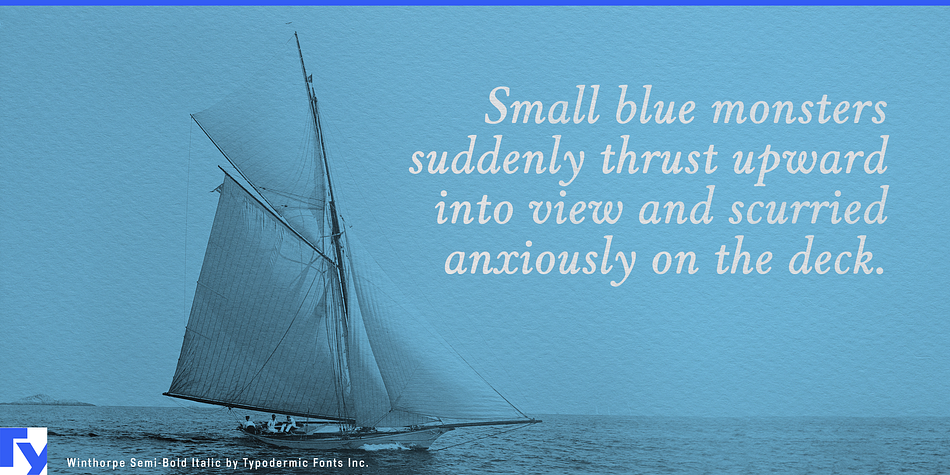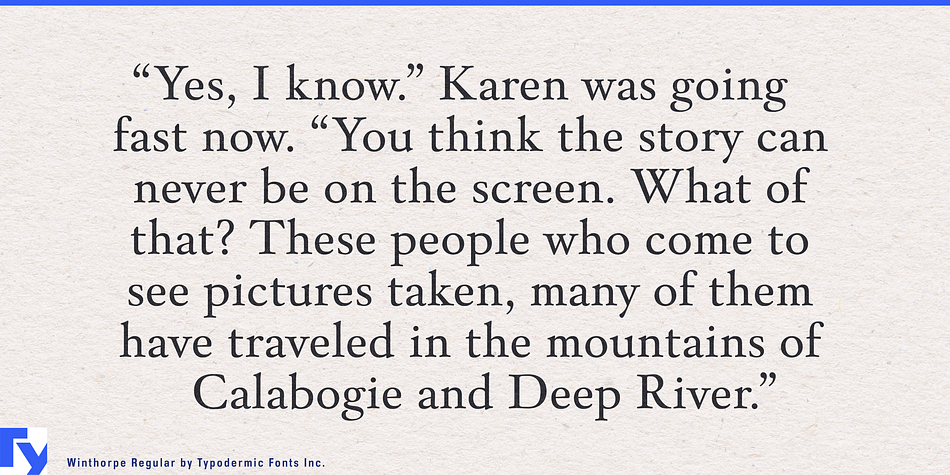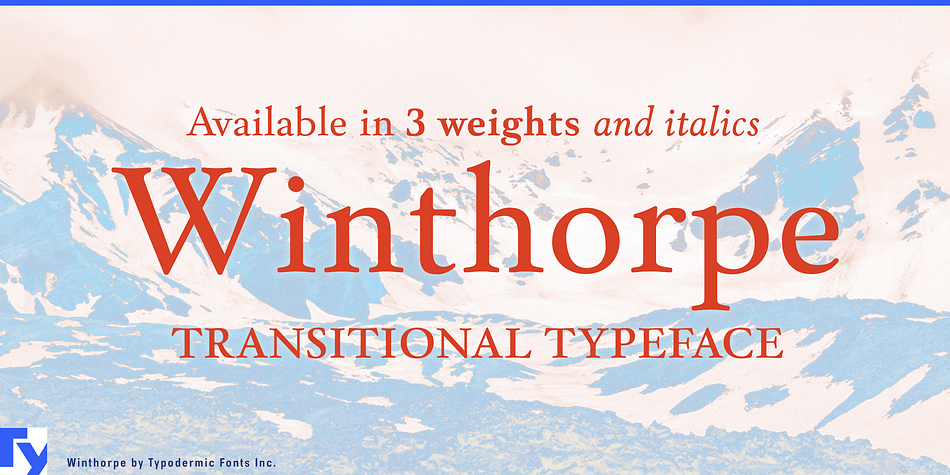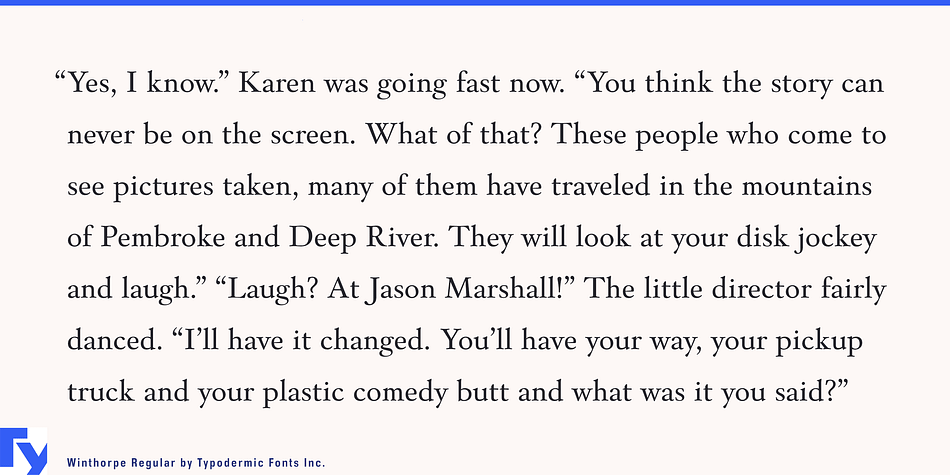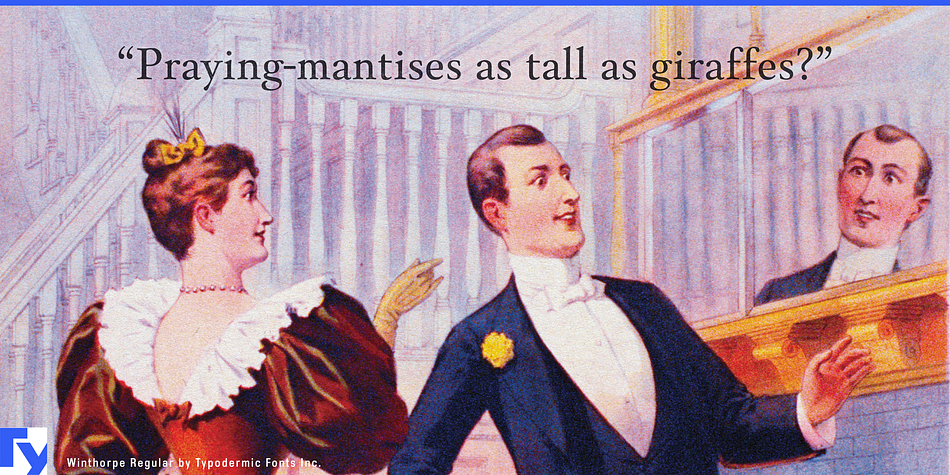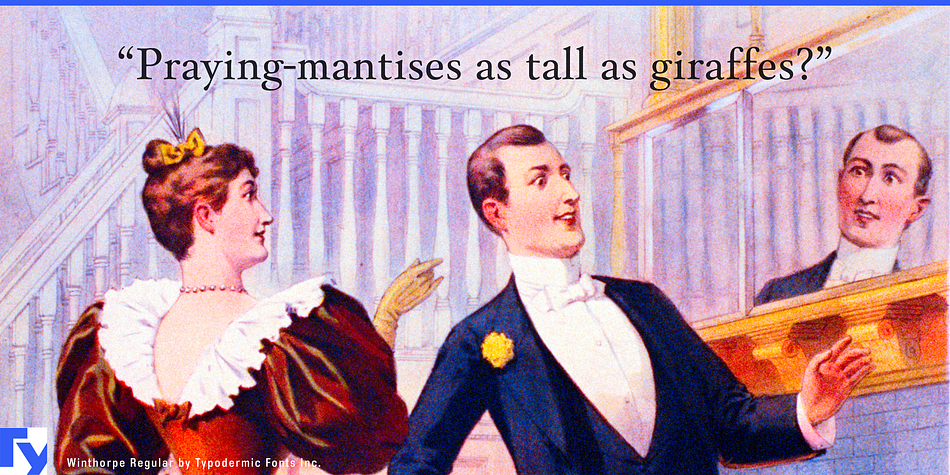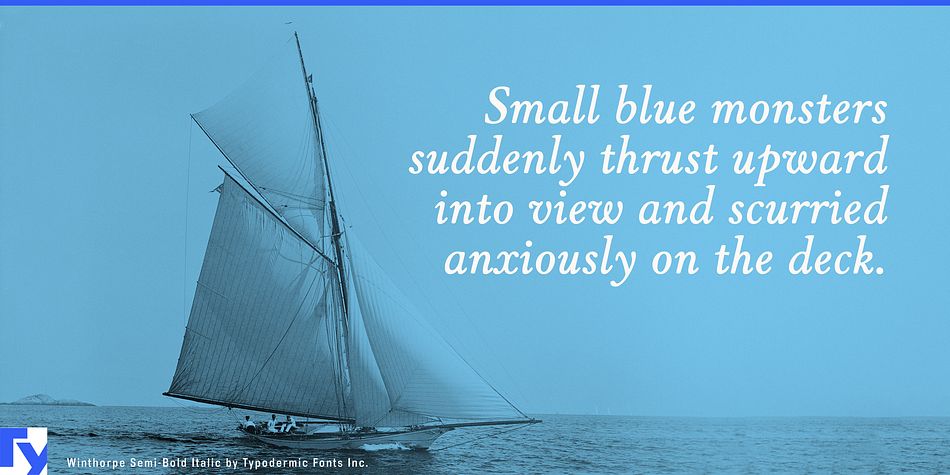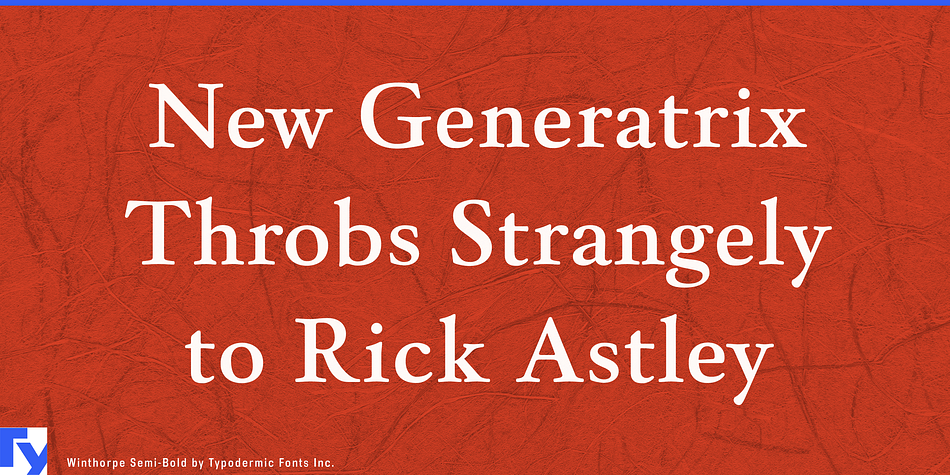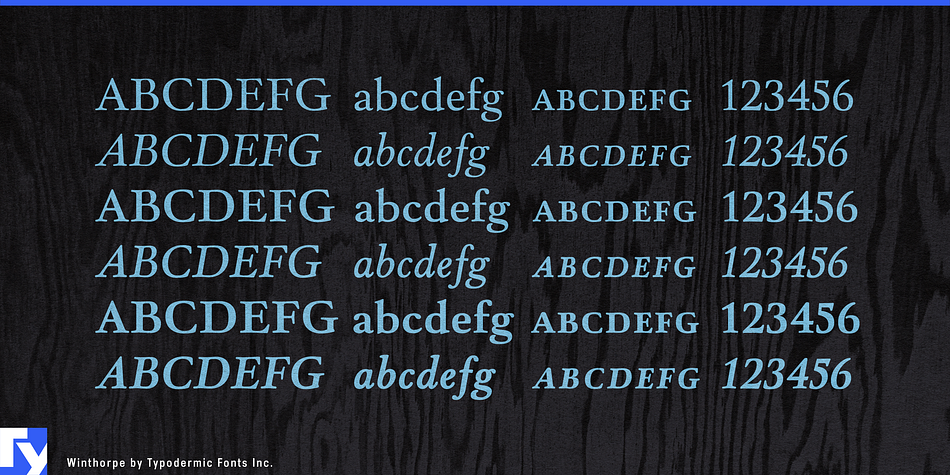
Winthorpe is a historical, serif and display serif font family. This typeface has twelve styles and was published by Typodermic Fonts Inc.
Winthorpe is a transitional text font which includes Regular, Semi-Bold & Bold in small-caps and italics. Included: lining numerals, old-style numerals, fractions, superiors, inferiors & ordinals.